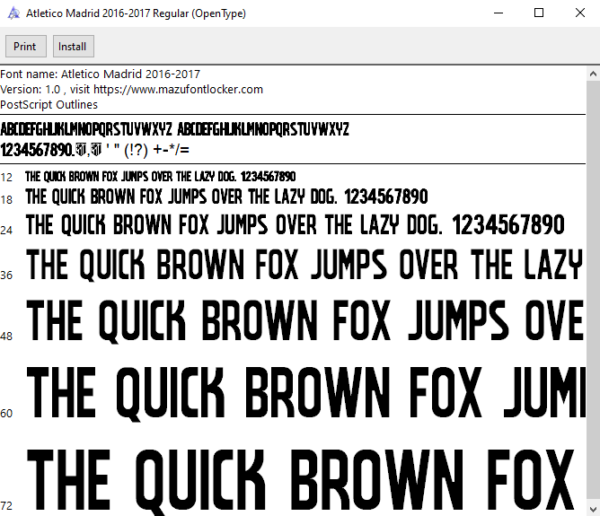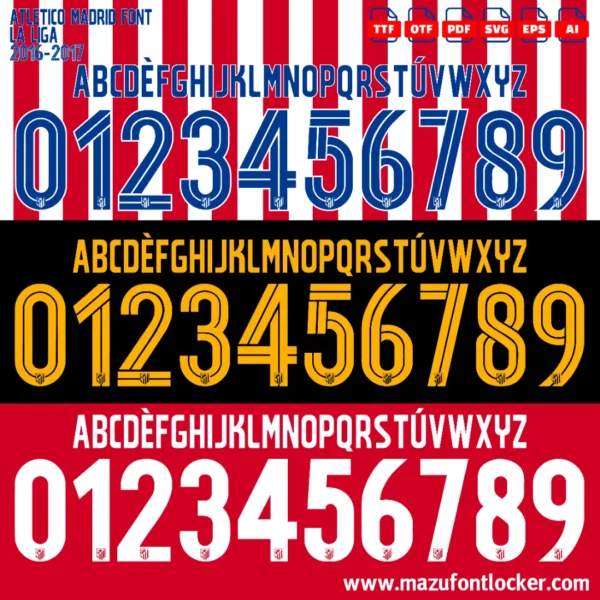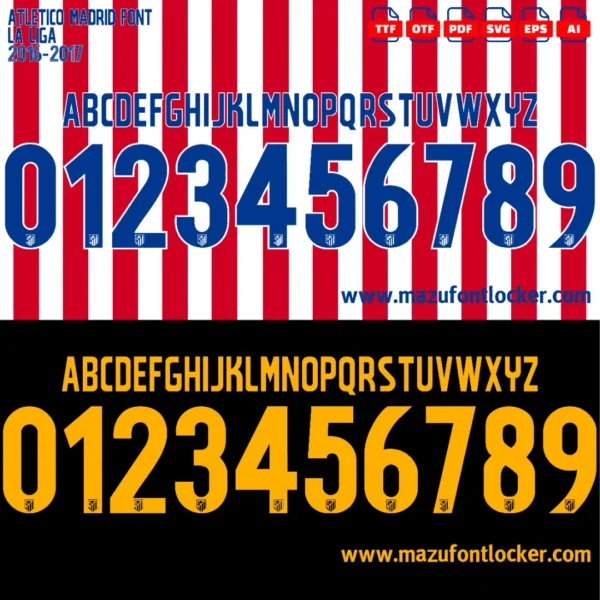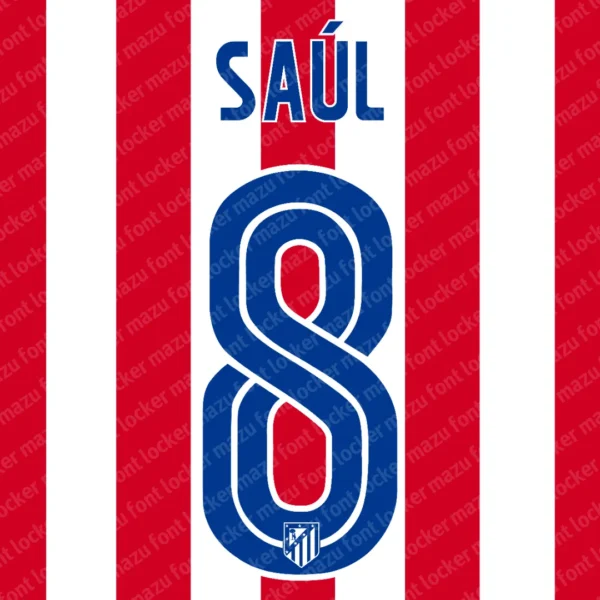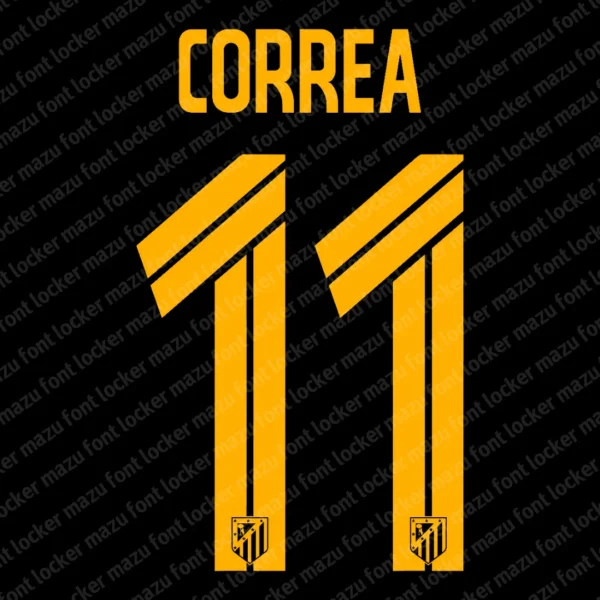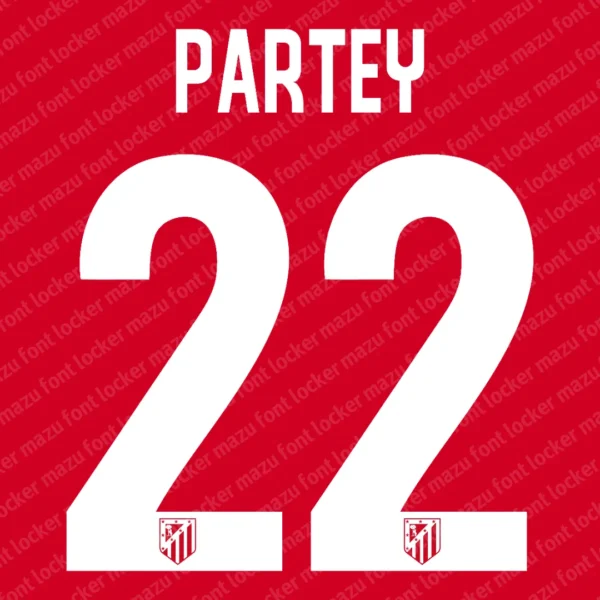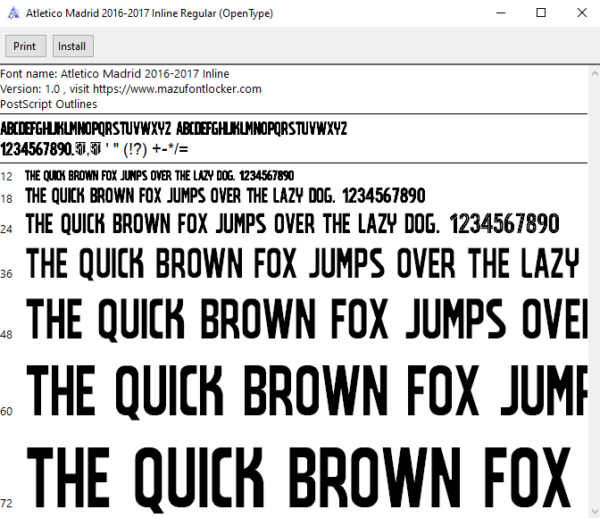
Atletico Madrid 2016-2017 Font Vector – Epic Rojiblanco Masterpiece
This font captures the sharp, aggressive, precision-crafted lettering inspired by Atlético Madrid’s iconic red-and-white identity, proud Spanish football heritage, Madrid warrior roots, modern club tradition, and unforgettable 2016-2017 campaigns — delivering premium authenticity and pure match-day intensity for professional jersey mockups, football graphics, sports branding, fan designs, and high-end creative projects.
Atletico Madrid 2016-2017 Font Vector – Stunning Rojiblancos Football Typeface
The Atletico Madrid 2016-2017 Font Vector is a premium football typeface designed to recreate the distinctive lettering associated with Atlético Madrid during the 2016-2017 era. This high-quality vector font kit captures a bold, modern, clean, and instantly recognizable football typography style inspired by Los Rojiblancos’ iconic red-and-white identity and proud Spanish football heritage.
Designed for professional graphic designers, football enthusiasts, jersey collectors, and passionate Atlético Madrid supporters, the Atletico Madrid 2016-2017 Font Vector delivers an authentic modern football aesthetic for creating realistic jersey mockups, classic football merchandise, social media graphics, match posters, squad designs, banners, and custom fan artwork. Every character has been carefully recreated to reflect the powerful and distinctive visual style associated with one of Spain’s most successful La Liga clubs.
This font stands out thanks to its precise vector construction and authentic football styling. Every letter and numeral has been meticulously recreated to deliver a distinctive football lettering aesthetic inspired by Atlético Madrid’s 2016-2017 period and its celebrated Spanish football heritage.
Whether you’re producing professional football kit templates, modern jersey concepts, La Liga graphics, contemporary football posters, squad designs, or eye-catching football content, the Atletico Madrid 2016-2017 Font Vector delivers a genuine match-ready appearance inspired by the identity of Los Rojiblancos.
The lettering featured in the Atletico Madrid 2016-2017 Font Vector combines strong geometric lines with balanced football proportions. The result is a premium and highly readable typeface that reflects Atlético Madrid’s traditional red-and-white identity, modern Spanish football heritage, and established status in La Liga.
• Complete uppercase A–Z alphabet and numbers 0–9 in authentic Atletico Madrid 2016-2017 inspired style
• Special Atletico Madrid badge glyph – Press the “:” (Colon) key to insert the club crest
Atletico Madrid 2016-2017 Era
The Atletico Madrid 2016-2017 Font Vector is inspired by the distinctive football typography and visual identity associated with the club during this modern period, making it an excellent choice for designers creating contemporary jersey concepts, La Liga posters, squad graphics, football artwork, social media designs, and fan-made projects.